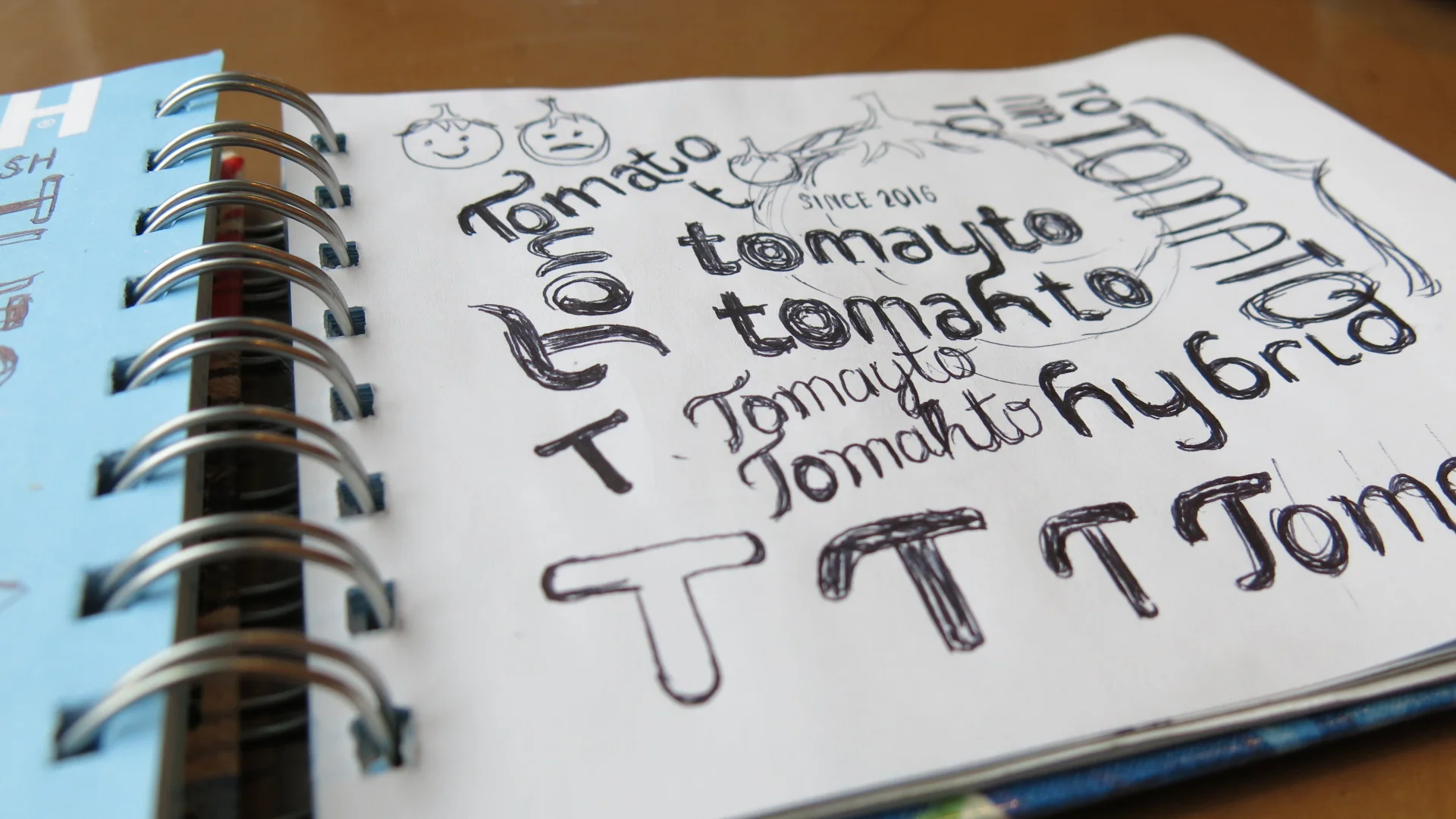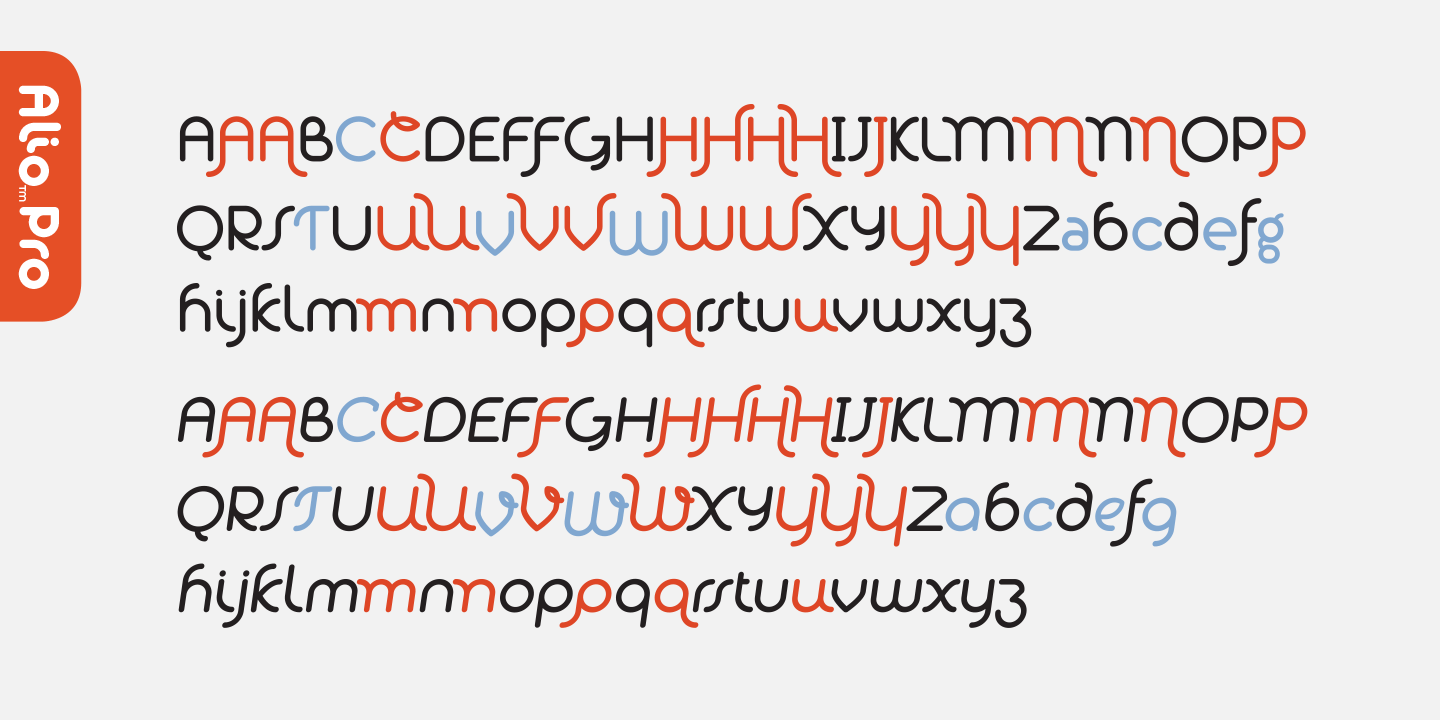
How I became a type designer
Travel along with me on my off-the-beaten-path journey to become a self-taught Canadian type designer from Vancouver, Canada.
GROUND ZERO: The Inspiring Type Sketch that Started It All
After a long stint assisting hundreds of clients with their creative and design needs, I decided it’s time I start building a brand of my own. For weeks, I had explored tons of ideas over several buckets of fried chicken wings smothered in sweet Thai chili sauce. Unfortunately, nothing seemed to fit my utmost critical criteria: I must enjoy doing it.
Who would have thought that my off-beaten-path-journey had turned up out of nowhere? One day, while doodling in a coffee shop, I stumbled upon one of the letterings I sketched. I like the design enough that I decided to take one step further and created a digital version out of it. One thing led to another; That little drawing has now turned into an extensive typeface, Alio™. And most importantly, even after several months of working long hours, seven days a week and countless of kerning pairs, I found myself falling in love with type design more and more every day. I am now a proud self-taught type designer from Vancouver, Canada.
Hand-drawn type design sketch in a spiral notebook, showing hand-lettered explorations of the word 'Tomato' and initial 'T' letterforms, marking the start of the type design career at R9 Type+Design.
This sketch is the starting point of my type design career.
Creative poster design featuring "Tomayto Tomahto" text, demonstrating the versatile display capabilities of Alio Pro and Alio Std font families.
This is the finished version.
Alio Pro's English alphabet glyph set. Stylistic alternates are highlighted in red. Distinct roman and their italic pairs are shown in blue.
A partial glyph set of Alio™ Pro, an extensive type family.